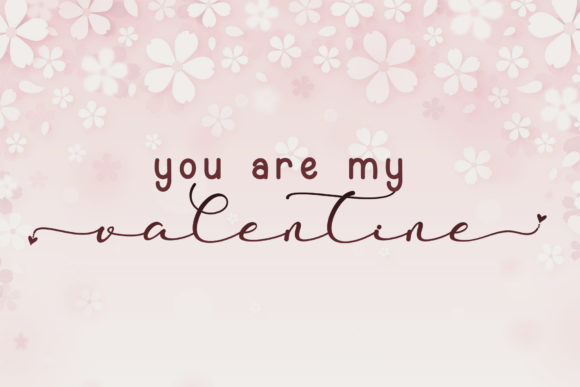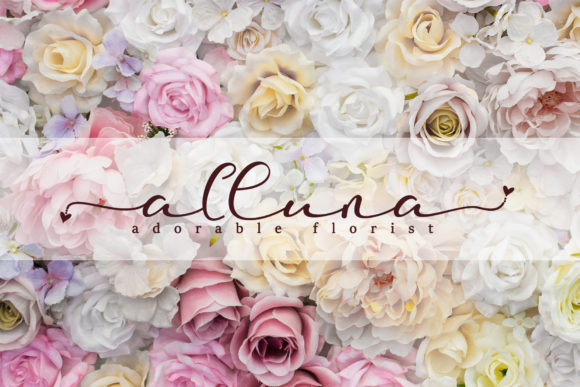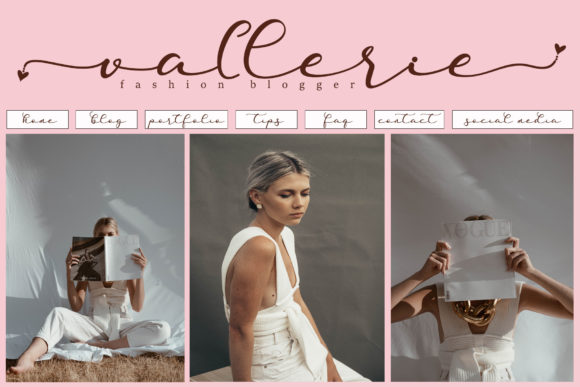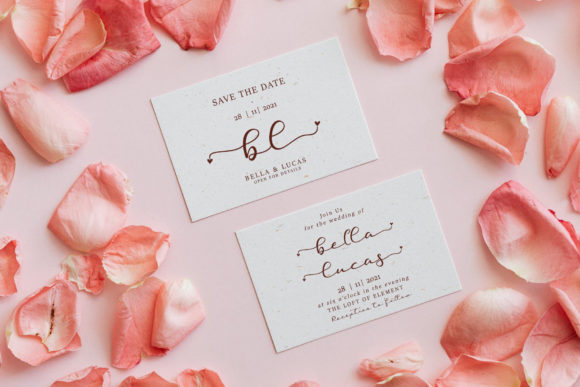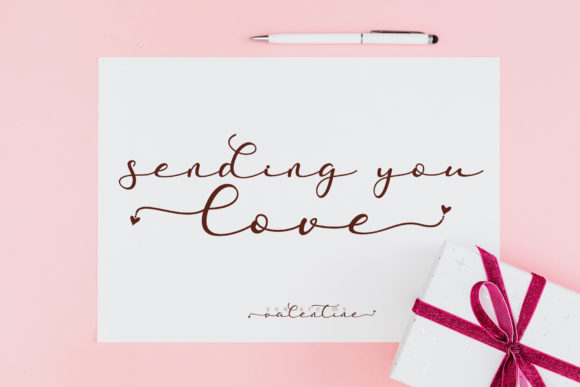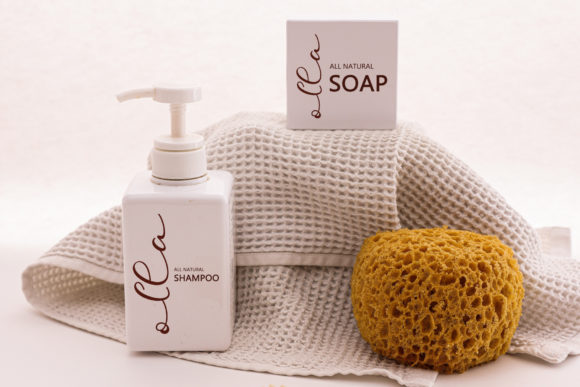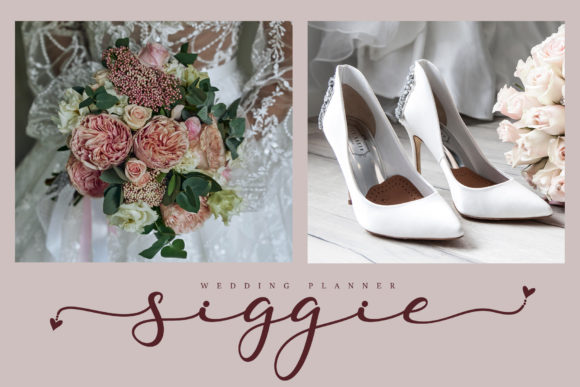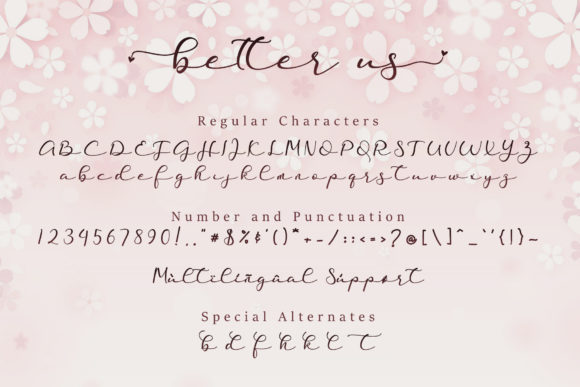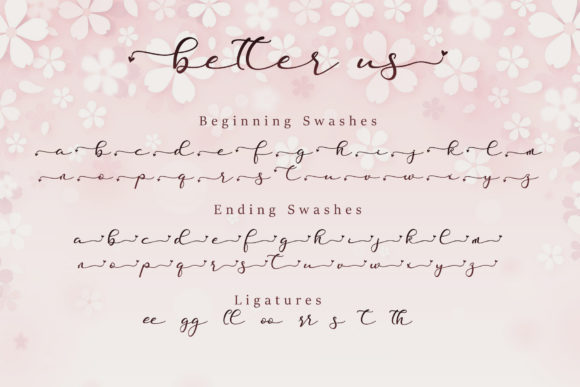
Better Us Font
About Better Us Font
Better UsĀ is a delicate and elegant handwritten font. Its distinct and well balanced letters make this font a masterpiece. This font is PUA encoded which means you can access all of the glyphs and swashes with ease!Ā